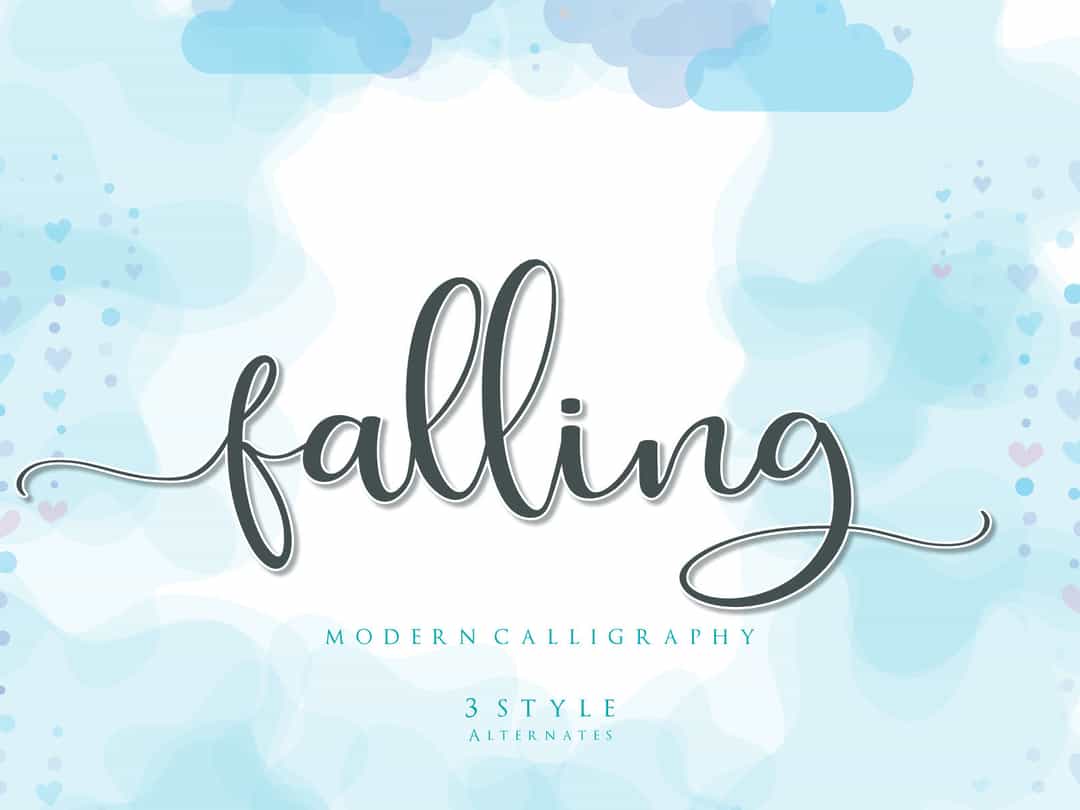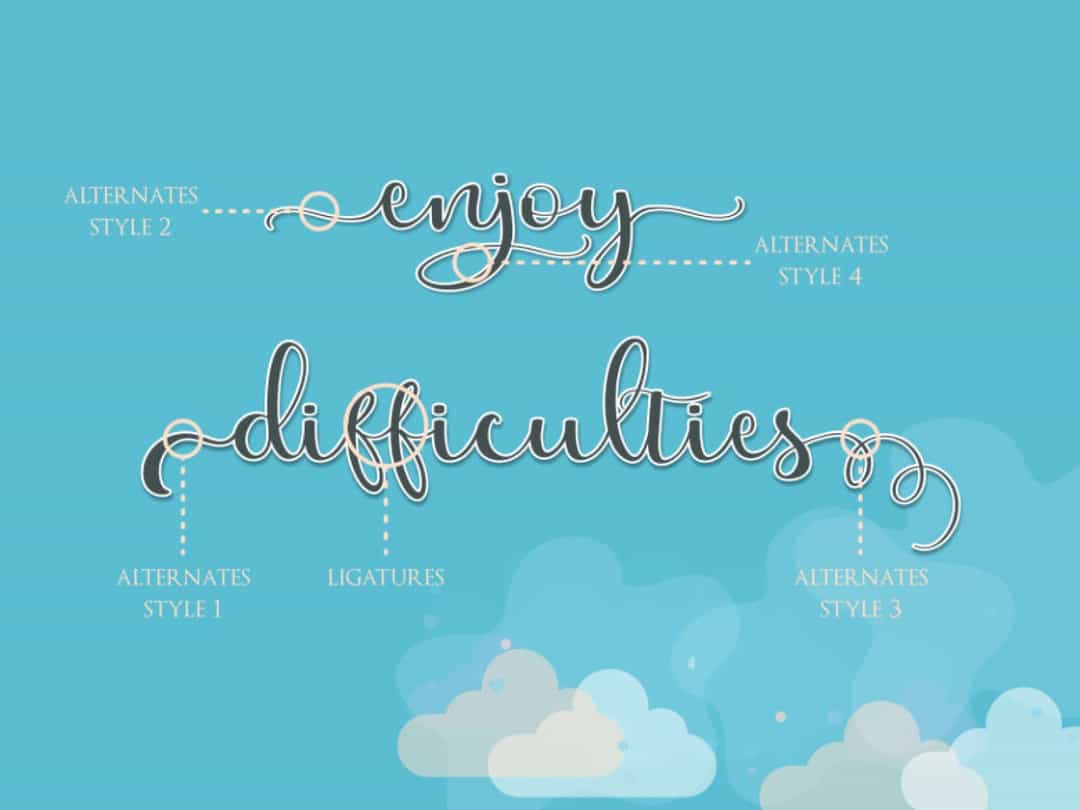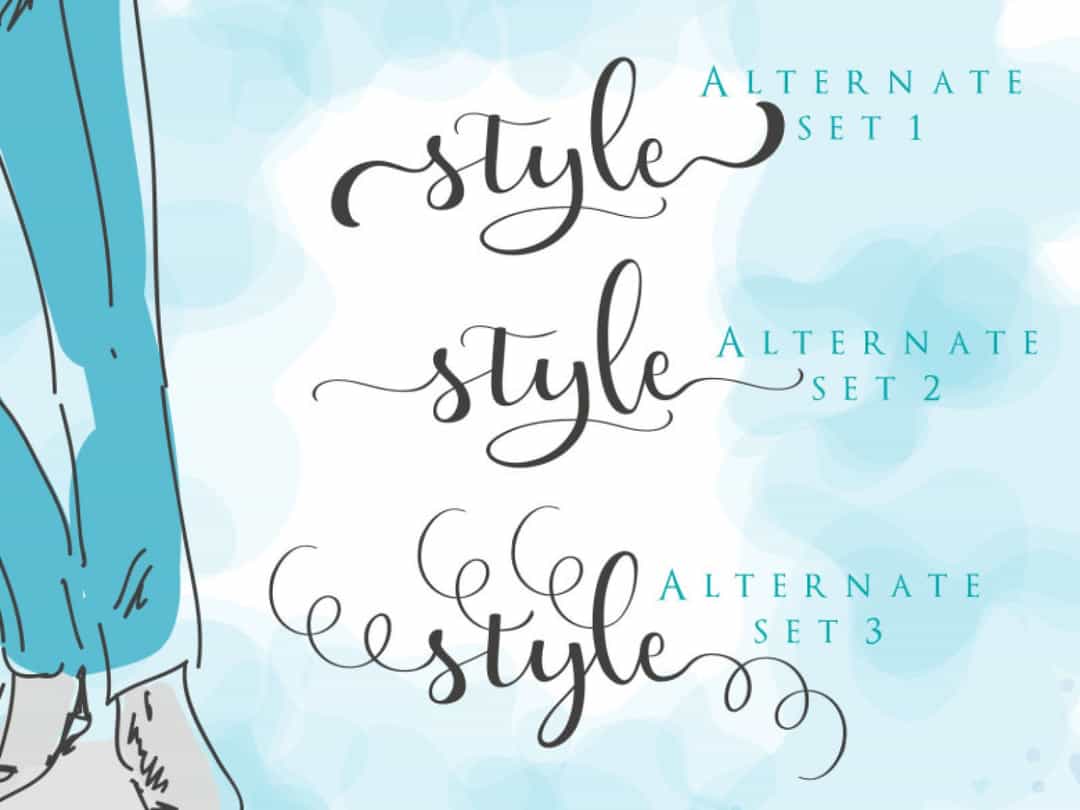
Discover Falling Font, part of the Calligraphy collection—a versatile and unique font perfect for adding a personal touch to your projects. Download it for free and enjoy crafting designs with style, from invitations to social media posts. This font is available exclusively for personal use, giving you the freedom to create without limits. Unlock your creativity with Falling Font today!
It is a modern script calligraphy typeface falling. The font was made by handwriting and has a very special and contemporary type of calligraphy. It has a native like flow in terms of writing. This font is contemporary, simple yet stylish suitable for logos, branding, invitations and any kind of letterhead. It is also good for social media posts and any other designs that require the handwritten style.